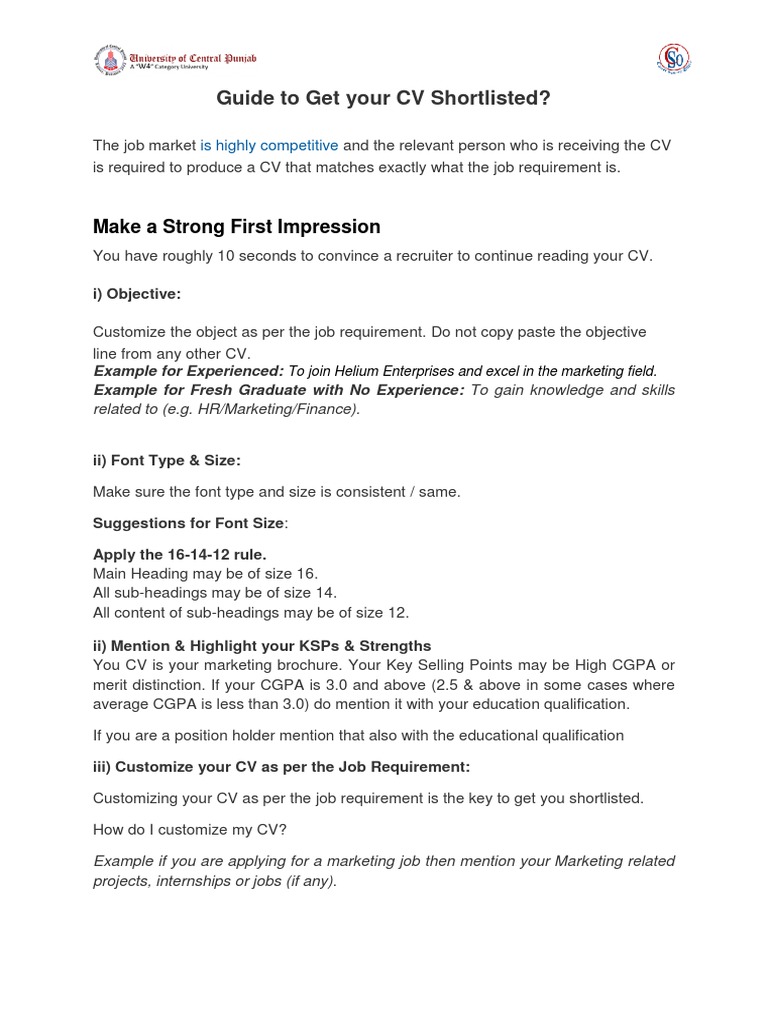
Depending on the particular font but no smaller than that is standard. Resume font size italics and bolding.
Cv font size and type. Headings can have their typeface set to 12 14 points. Your best choice for resume font is to use one of the fonts weve listed and to stick to a font size between 105 and 12 points. Depending on the type of font you use you should ideally use a font size between 10 13. For some sans serif fonts 10 points can be big enough. Larger sizes are acceptable for headings or subheadings. Best font size for your cv.
Takeaways best font and size for your resume. However if you are applying to a position in graphic design or advertising where resume layout and design might be part of your assessment employers might be open to alternative fonts. Too big and your cv will look basic and unprofessional. Calibri thankfully replaced times new roman in 2007 as the default typeface in microsoft word. The 20 best fonts to use on your cv. Because it is best practice to keep your resume to one or two pages begin with size 10 font and experiment with sizing up if you think you have space.
While most people know not to use scented paper graphics colors or comic sans fonts here are a few additional tips on how to write an effective resume from our friends at resumetemplates101. Remember that everyone viewing your resume on a computer will have different fonts installed and you dont want your carefully chosen typeface automatically replaced with a substitute that messes up the documents. Basic bookprint fonts like arial verdana calibri and times new roman work well. The optimal font size for your resume is anything between 10 and 12 points. Most used resume formatting order is. 11 12pt for normal text 14 16pt for section titles and headers.
With that said if you dont want to worry about the specific resume formatting and getting the details right you can always use a resume builder to make your life much easier. Contact information work experience skills and education. Now you know what a good font for your resume is and what size font to use youre ready to start writing your own. The best resume font type to use. The resume font should be size 12 points. The body of your resume including headers should generally be 10 to 12 points no matter what typeface youre using.
The most common font to use is times new roman in black and size 12 points. Best resume font sizes are. Best font for resume in 2020. The size you choose will be largely determined by how the font size impacts your resume layout. For resumes a font size of 10 to 12 pt. Without further ado and in no particular order here are the 20 best fonts to use on your cv.
Resume fonts sizes. Once youve selected a font that suits your personal style and industry you need to think about the size of font you will use. Another resume formatting choice to consider is the size of the typeface you choose.